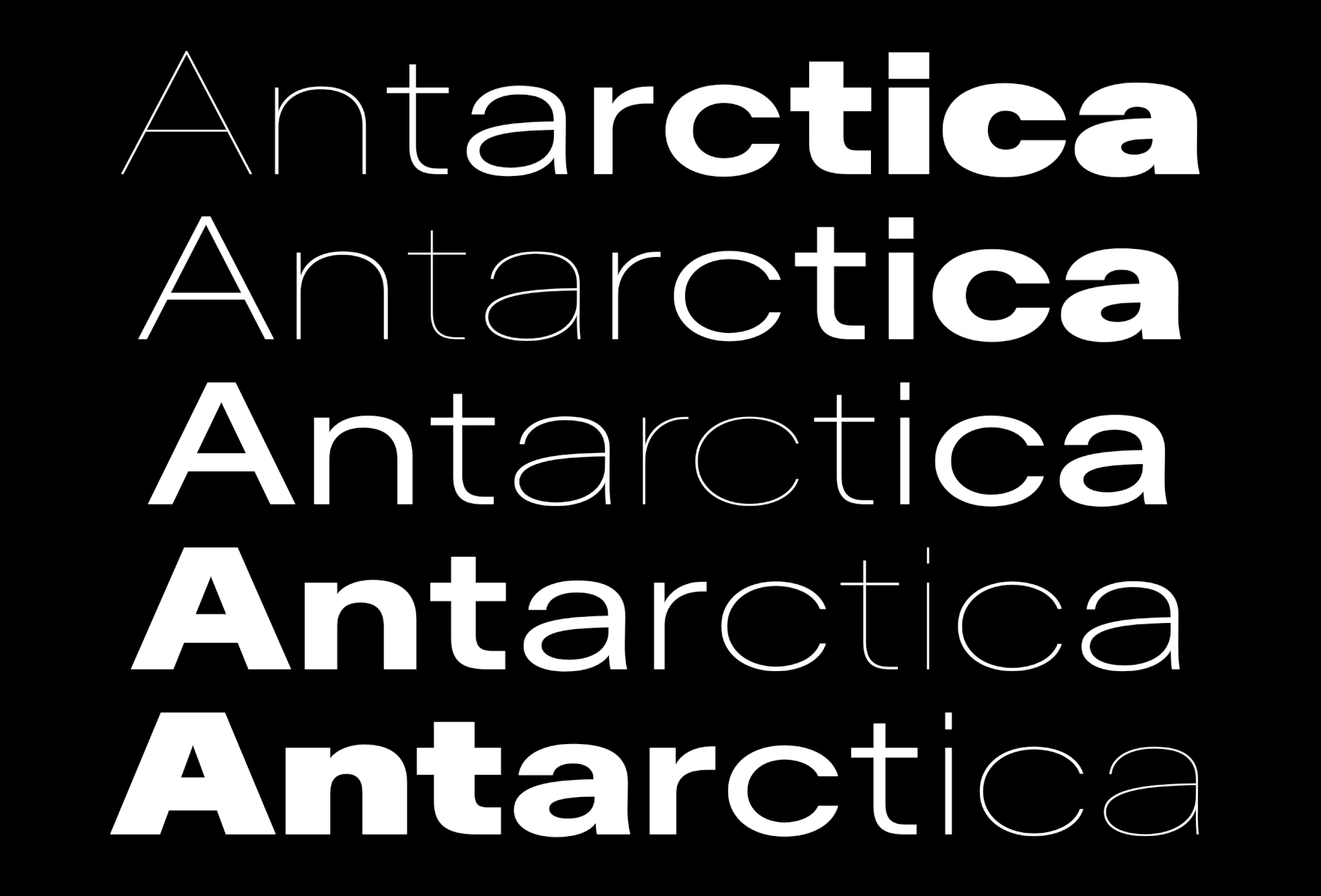
Antarctica Font
Antarctica Sans Serif Font is a neo-grotesque typeface created by the Swiss type designer Ian Party and available at newglyph. Designing with this typeface gives you an endless variation of possibilities. It has styles going from “Ultra Condensed Hairline” to “Ultra Expanded Extra Black” and their contrasted variants.